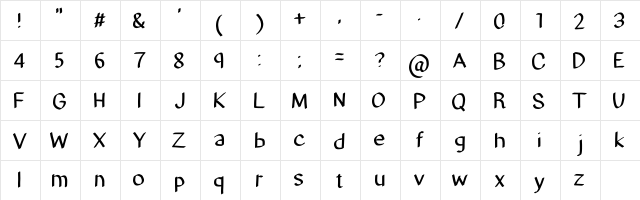
i do not trust you Medium
Design Context for i do not trust you Typeface
i do not trust you takes a measured approach to typography — its balanced proportions and neutral character make it a reliable workhorse for both digital and print work.